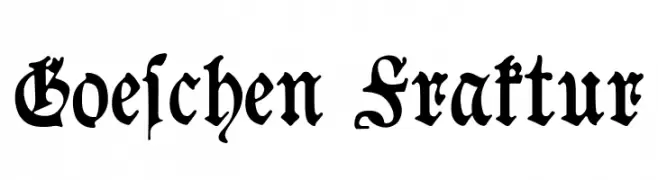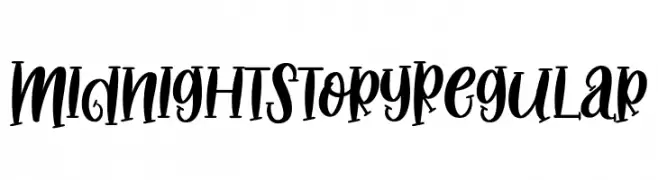
A bold, blackletter font with intricate details and a historical feel.
A traditional Blackletter font with ornate and angular strokes, ideal for historic and formal designs.
A bold, expressive handwritten font with dynamic curves and elegant flourishes.
An ornate, historical font with intricate decorative elements and a vertical emphasis.
A playful, bold font with a hand-drawn, whimsical style.
A playful, handwritten font with dynamic strokes and a modern, whimsical style.
A bold, ornate Blackletter-style font with intricate, gothic details.
A bold, gothic-inspired blackletter font with intricate, angular characters.
A playful, hand-drawn font with tall, narrow letters and medium contrast.
A lively and expressive handwritten font with dynamic strokes and playful curves.